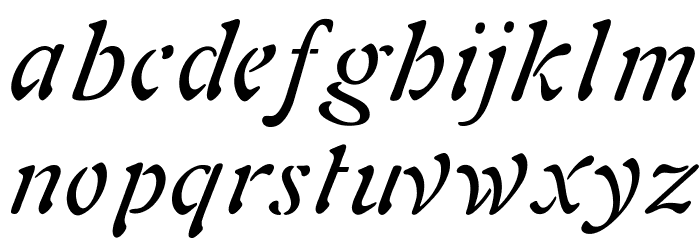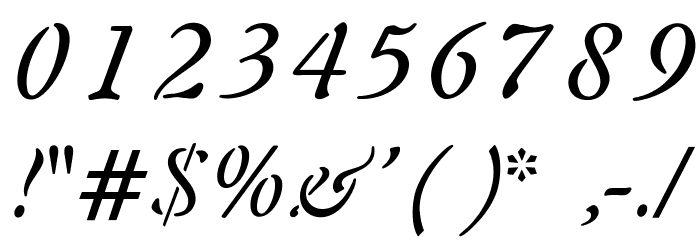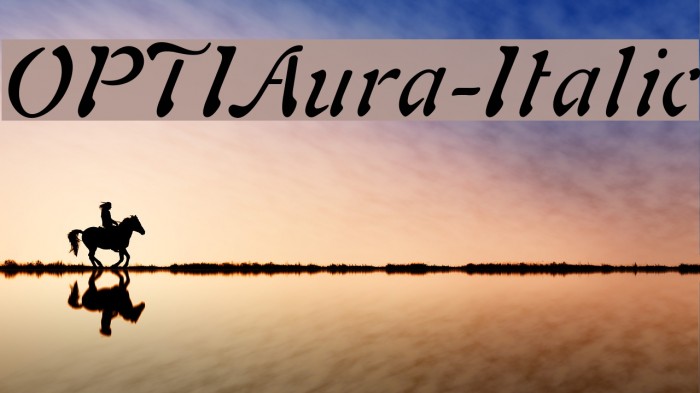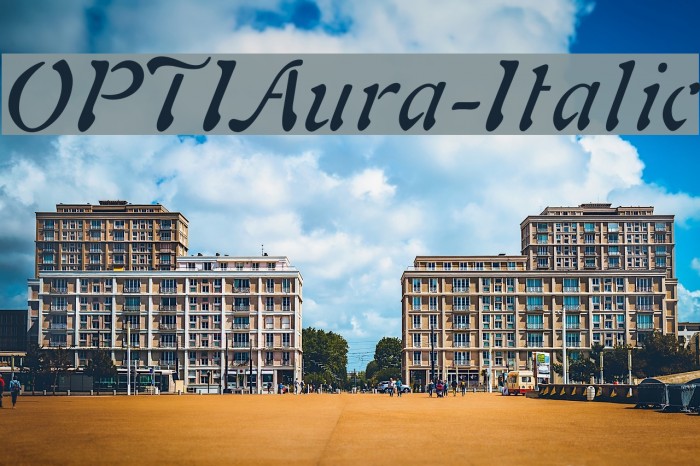
OPTIAura-Italic Font
This font features an elegant and flowing italic style, characterized by its smooth, cursive strokes and moderate slant. The uppercase letters exhibit a sophisticated flair with distinctive curves and swashes, while the lowercase letters maintain a consistent and harmonious flow. The numerals are designed with a classic touch, complementing the overall aesthetic. Special characters are gracefully integrated, enhancing the font's versatility. The design balances readability with artistic expression, making it suitable for a variety of creative applications.
An elegant italic font with flowing, cursive strokes and a moderate slant.
- Proposed Projects: Ideal for wedding invitations, elegant branding, greeting cards, and editorial design.
- Overall Style: Elegant
- Use Case: Logos, Invitations, Editorial design